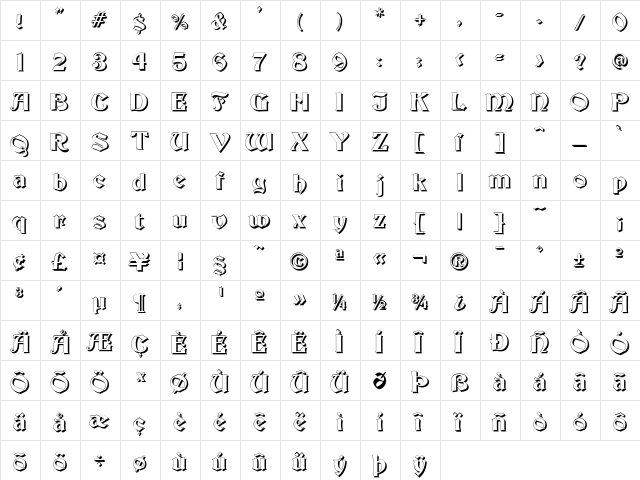
Becker Shadow Regular
Design Context for Becker Shadow Typeface
Becker Shadow brings ornamental detail and strong personality to headlines and identities, where visual impact matters more than quiet functionality.
Font Pairing: Pair with a clean neutral sans-serif for body copy to let Becker Shadow's character lead without overwhelming the composition.
Pro Tip: Use Becker Shadow exclusively at display sizes — it was designed to be seen, not read at length. Let a neutral companion handle body copy.